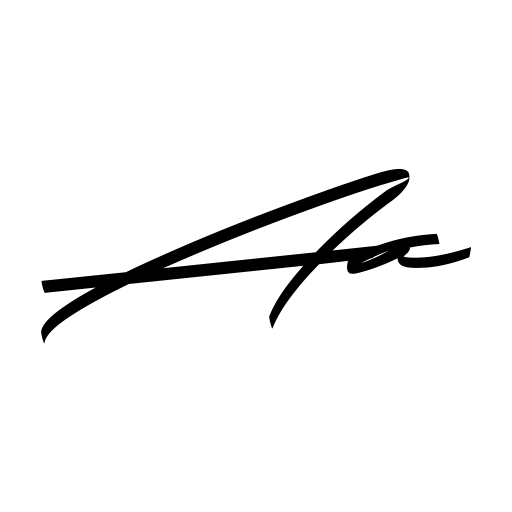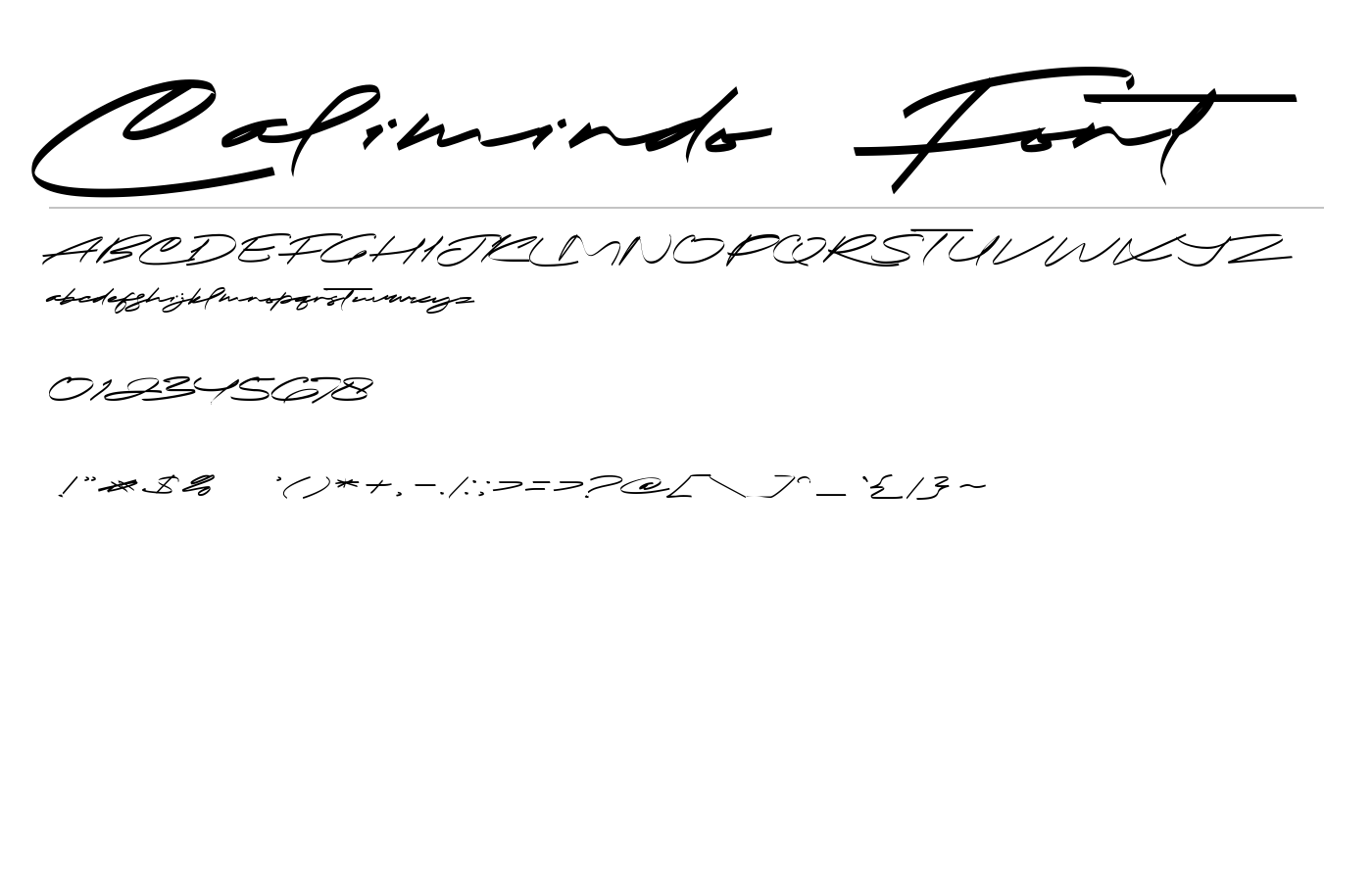
Calimindo is a stylish, modern script font that mimics elegant, flowing handwriting with a dynamic, slightly edgy flair. Its thin, elongated strokes and distinctive letterforms create a sophisticated yet artistic look, making it ideal for creative branding, fashion logos, and personalized invitations where a unique, expressive touch is desired. This font works best in headline or display uses due to its delicate, intricate details.
Calimindo Font
About Calimindo Font
| Font family | Calimindo Font |
| Designer | emanesdsign |